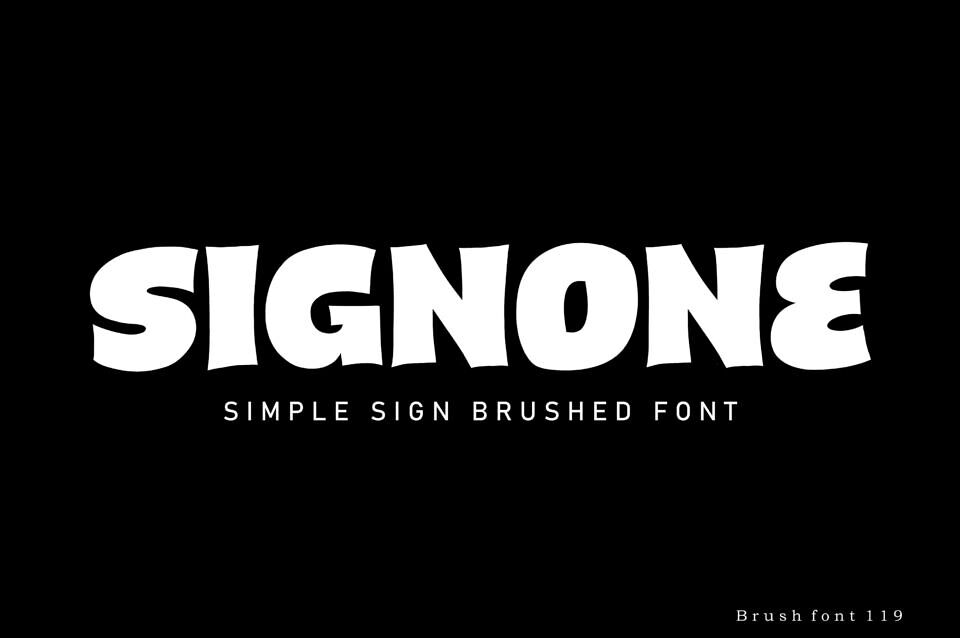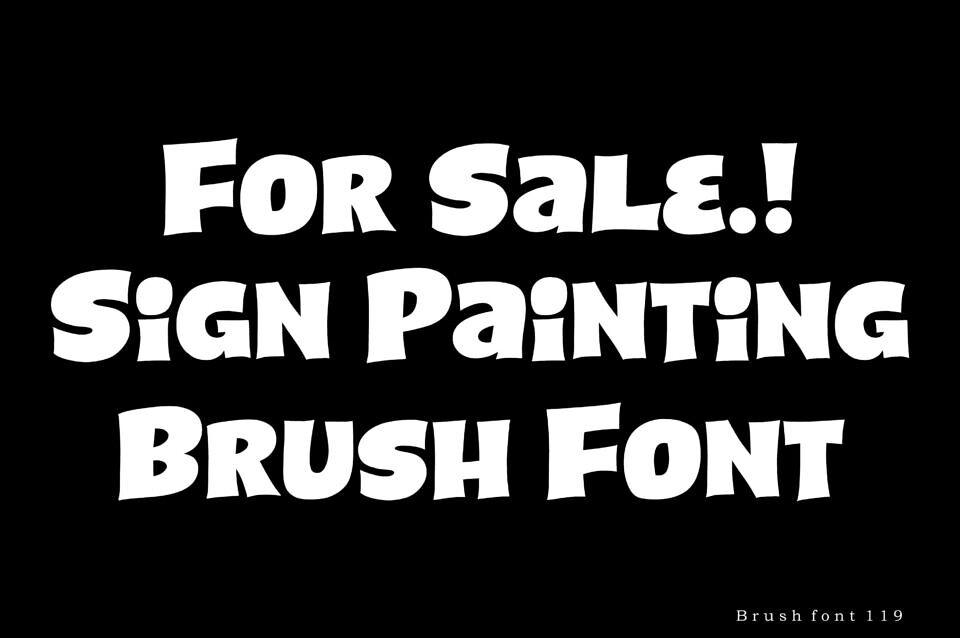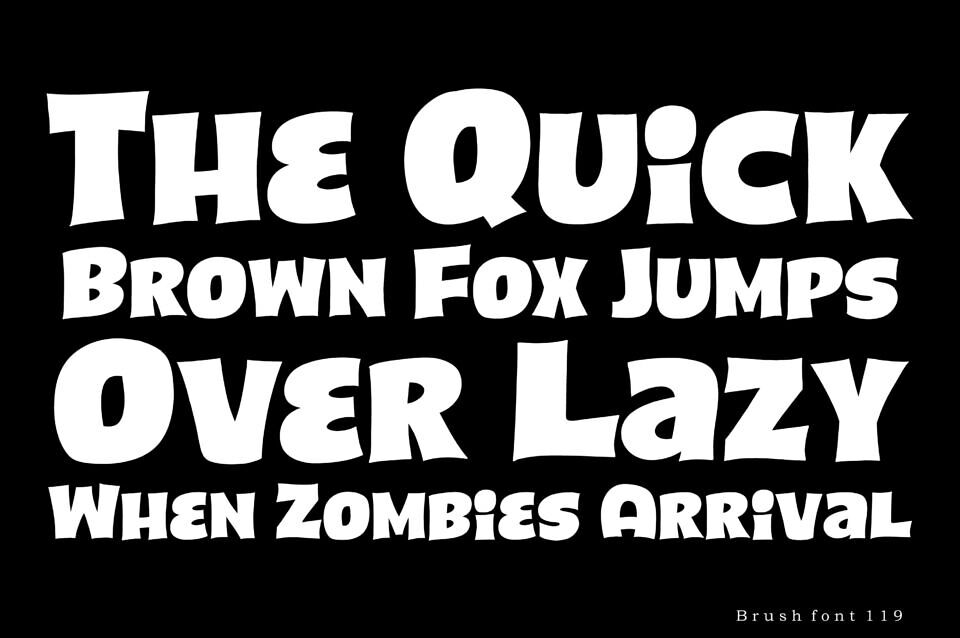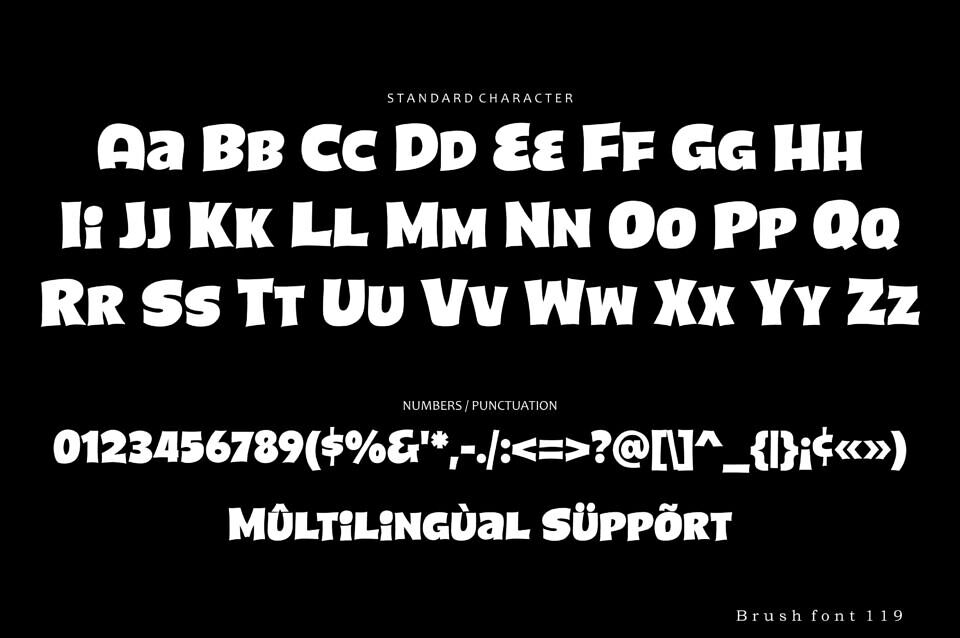
Sigenone Font is a bold, hand-brushed typeface designed for eye-catching titles and signage. Its playful curves, thick strokes, and uneven brush edges give every word an energetic, handcrafted look.
The font includes uppercase, lowercase, numbers, punctuation, and multilingual support, making it versatile for posters, ads, branding, and creative projects. With its expressive, high-impact style, Sigenone Font brings a fun and dynamic feel to any design while remaining easy to read and highly attention-grabbing.